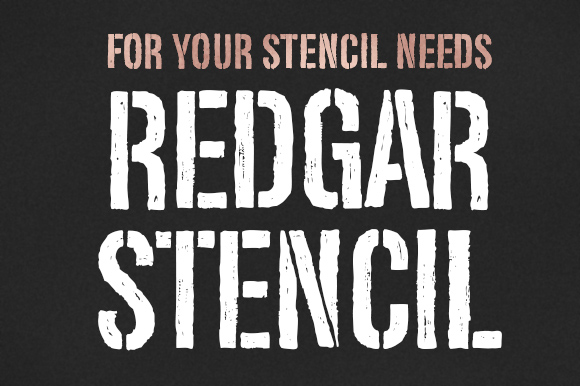
Are you looking for a display font that's both unique and captivating? Look no further than Redgar Stencil Font, a weathered stencil font created by the renowned Graphite.
Redgar Stencil Font is the perfect choice for designers who want to make a bold statement with their typography. With its distressed and rugged style, it adds a touch of edginess and personality to any project.
This font is perfect for any design that needs to convey strength, power, or raw emotion. Whether you're creating a poster for a music festival, a book cover for a thriller, or a logo for a tattoo parlor, Redgar Stencil Font has got you covered.
Don't settle for boring and bland typography. Let Redgar Stencil Font bring your designs to life with its unique style and character.
And with its keyword-rich style, this font is perfect for boosting your website's search engine rankings. Plus, its display font family ensures that it will stand out from the crowd and catch the eye of potential customers.